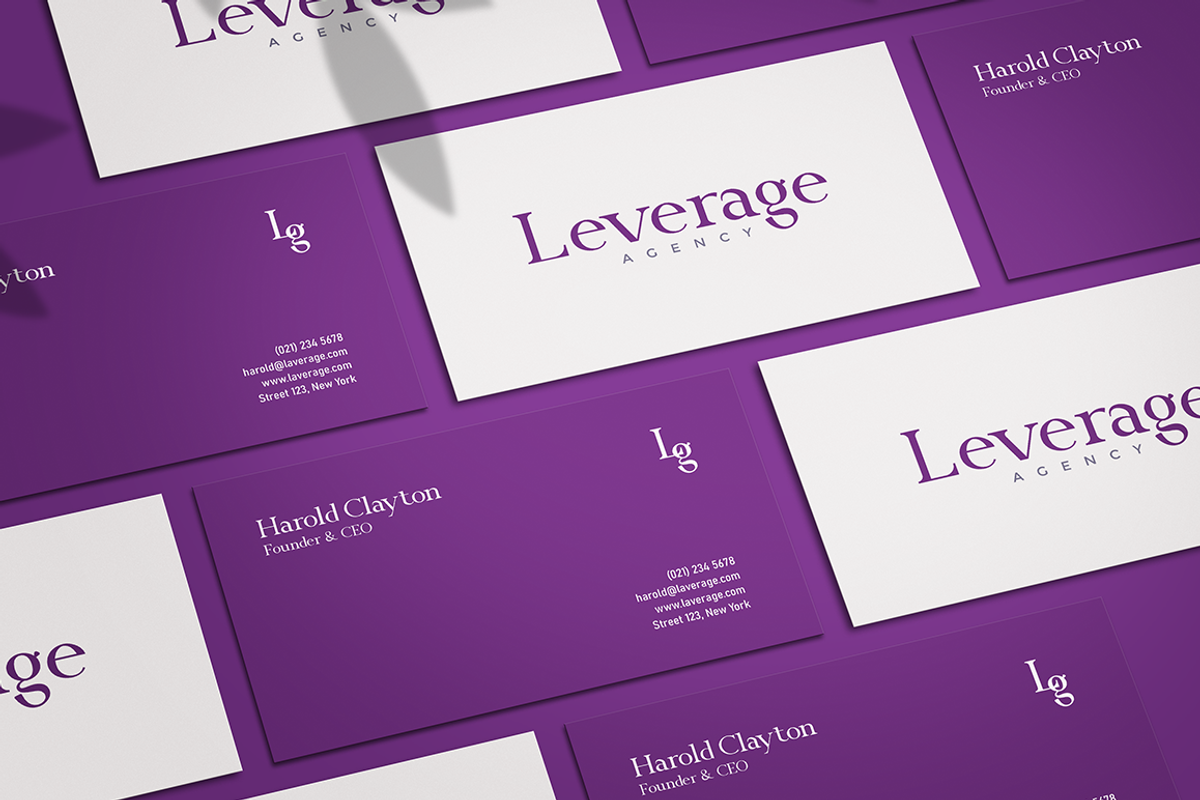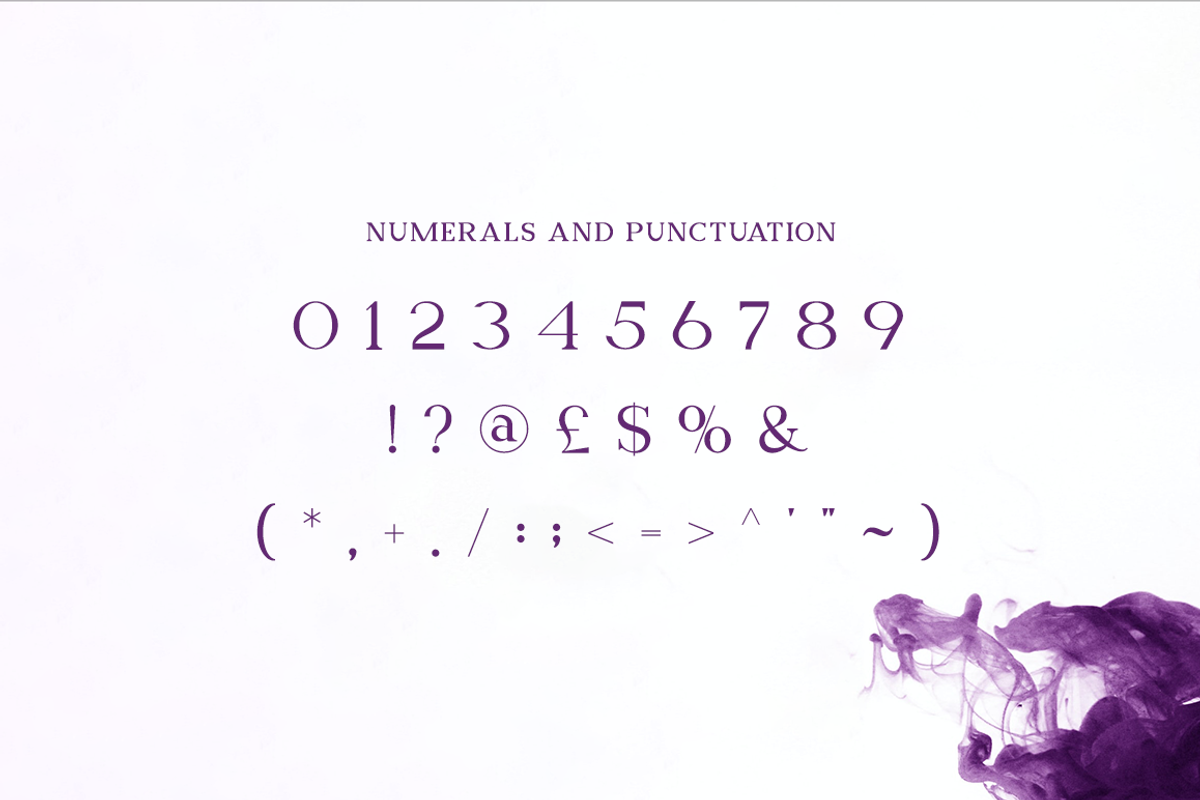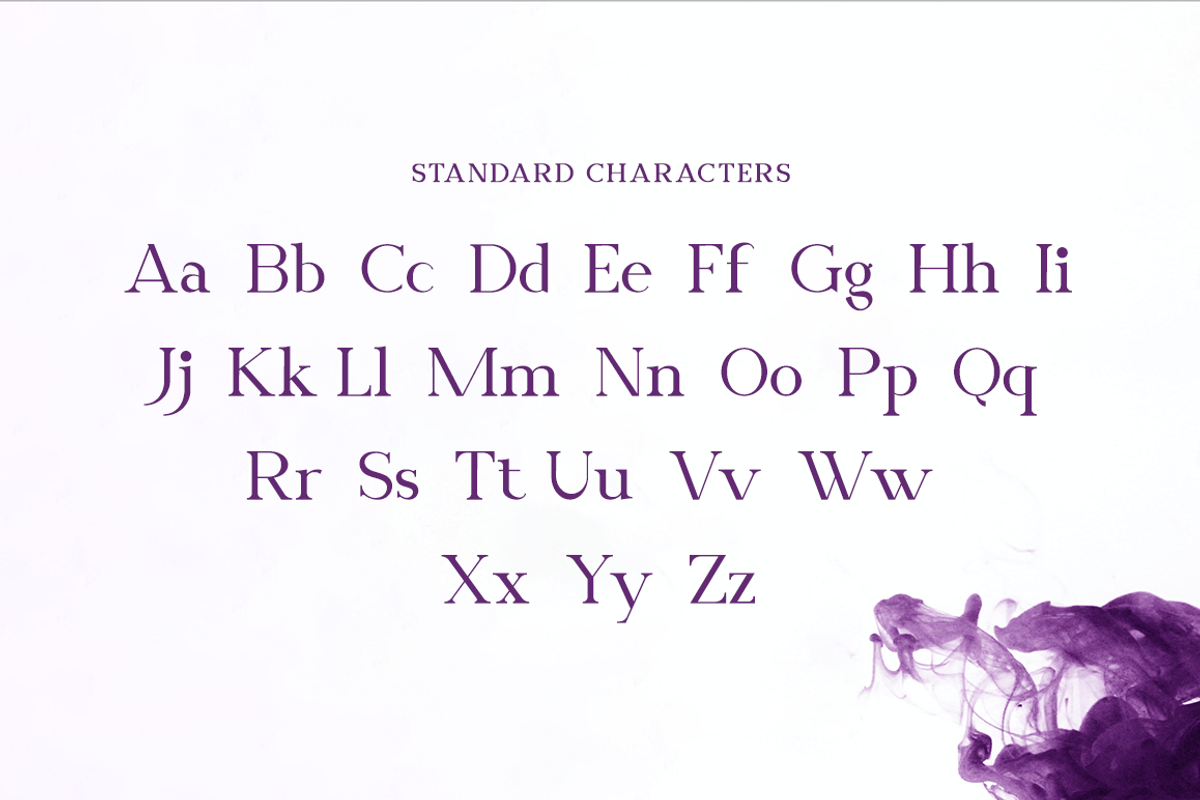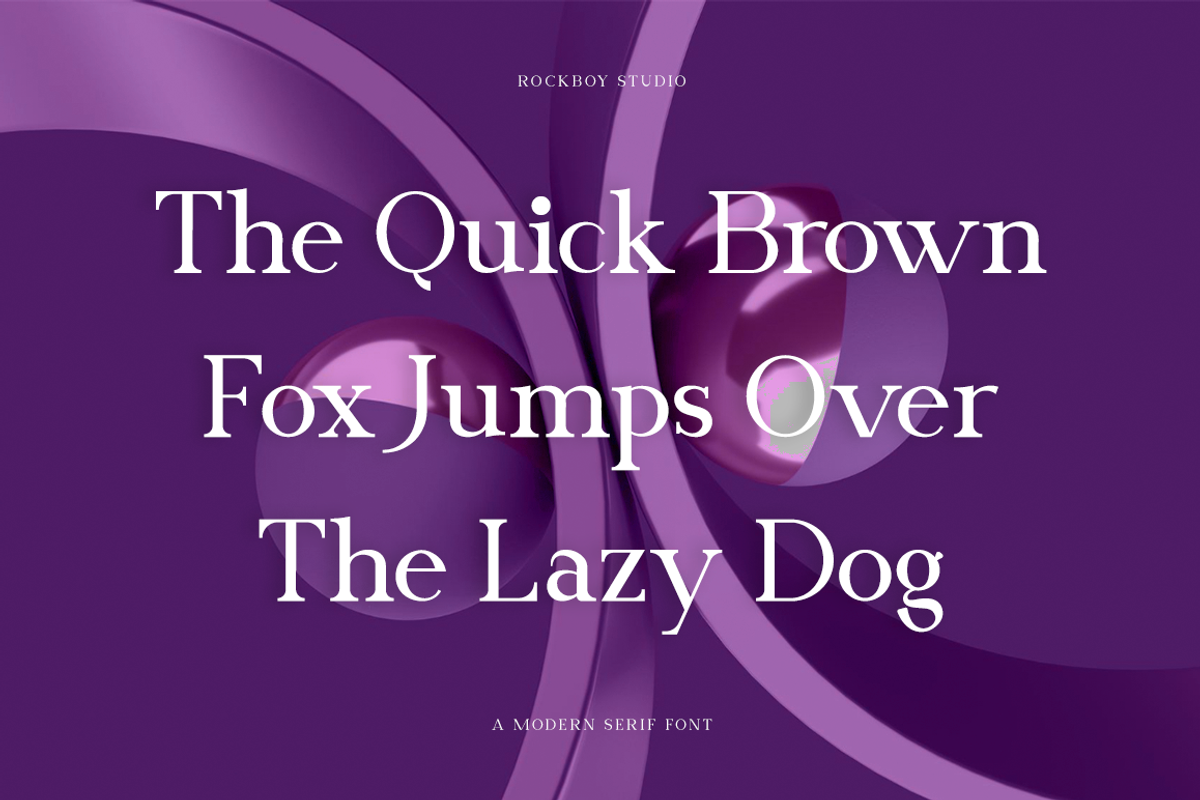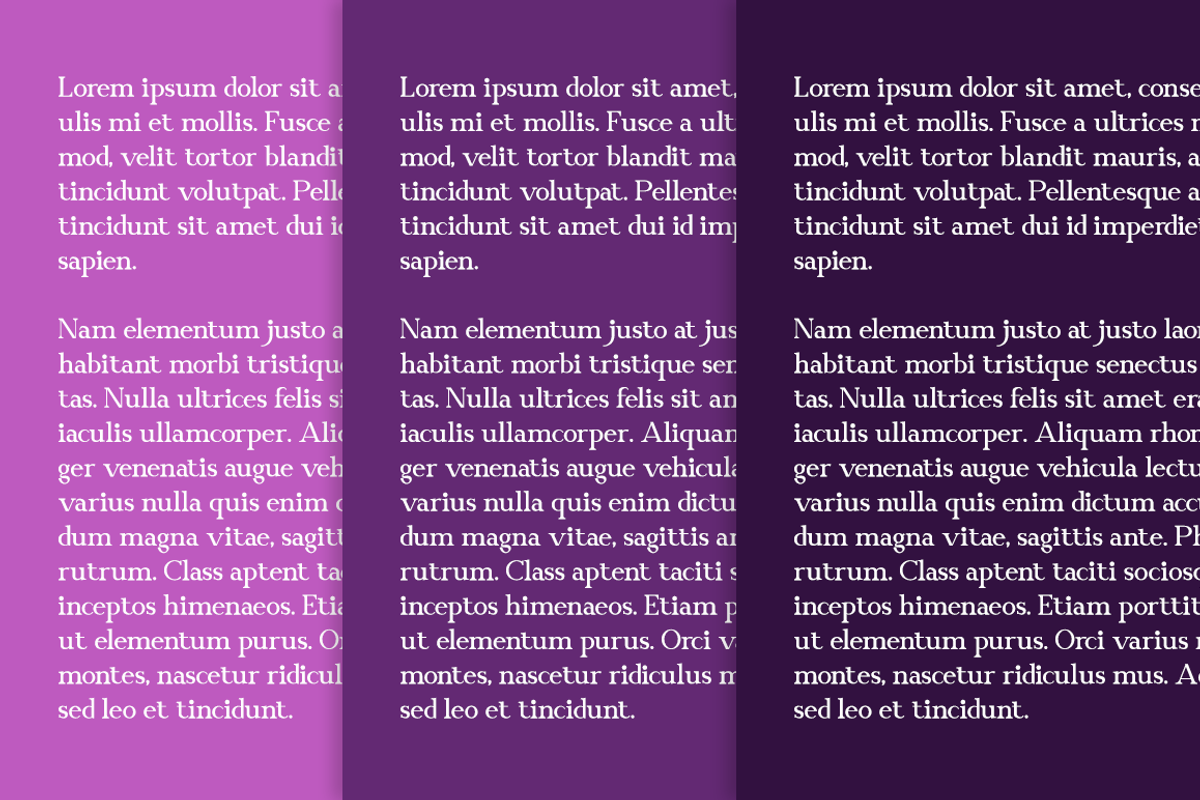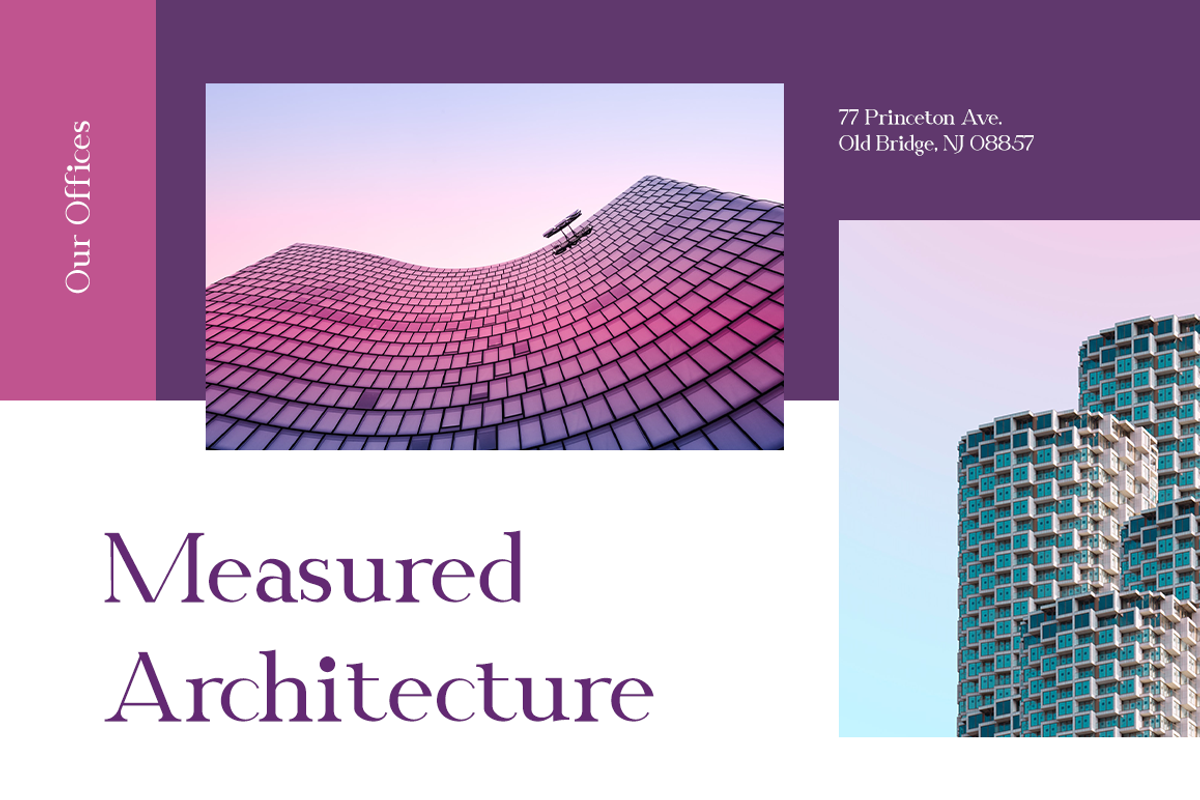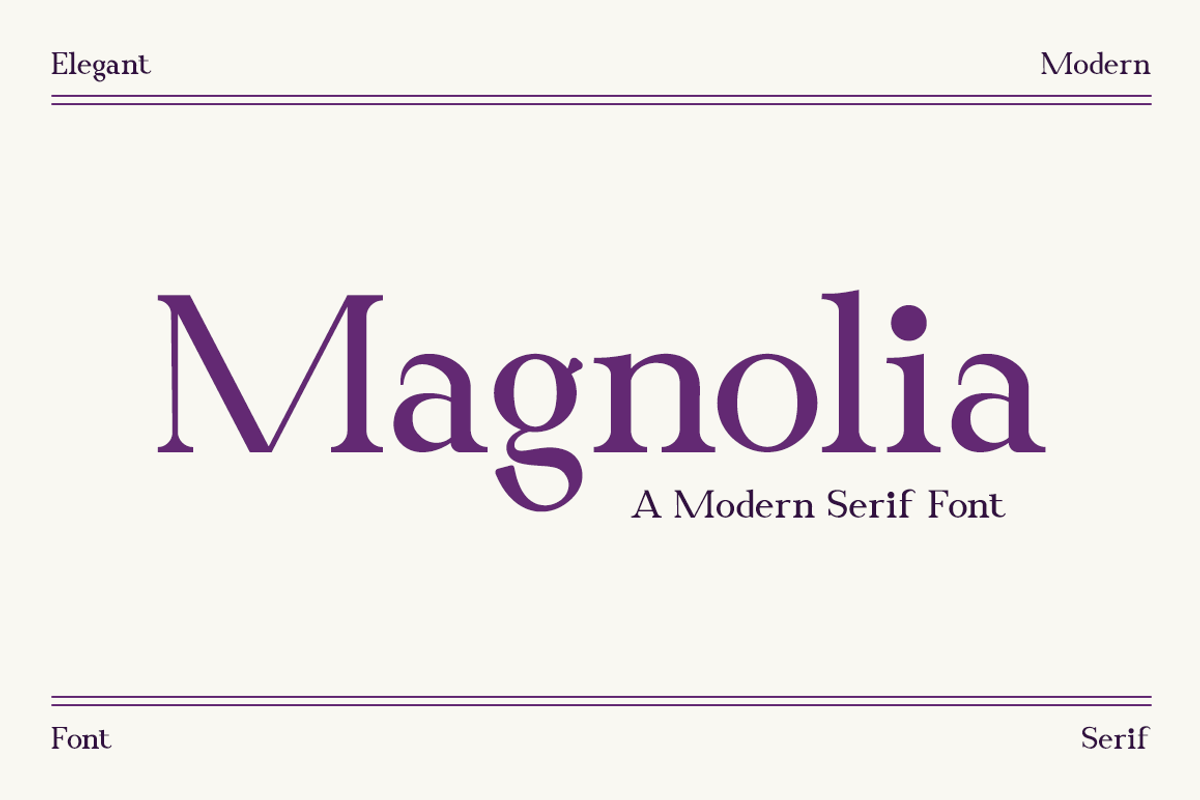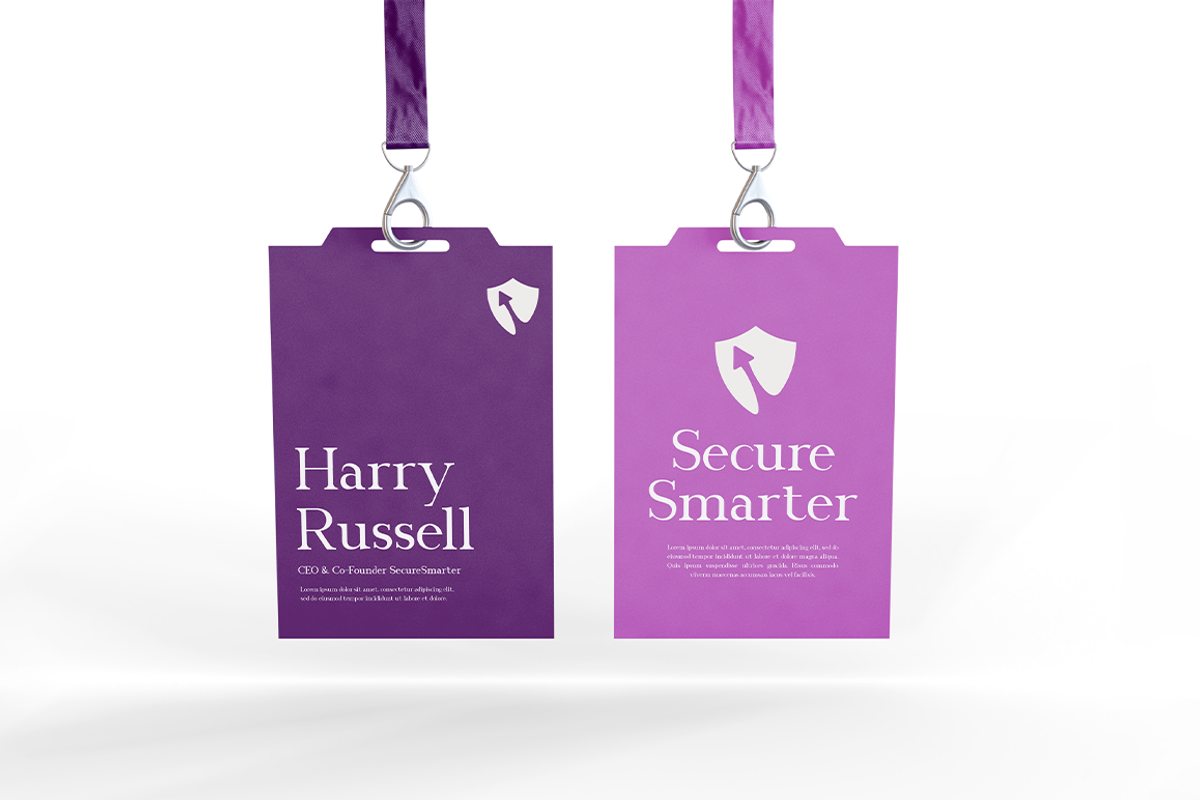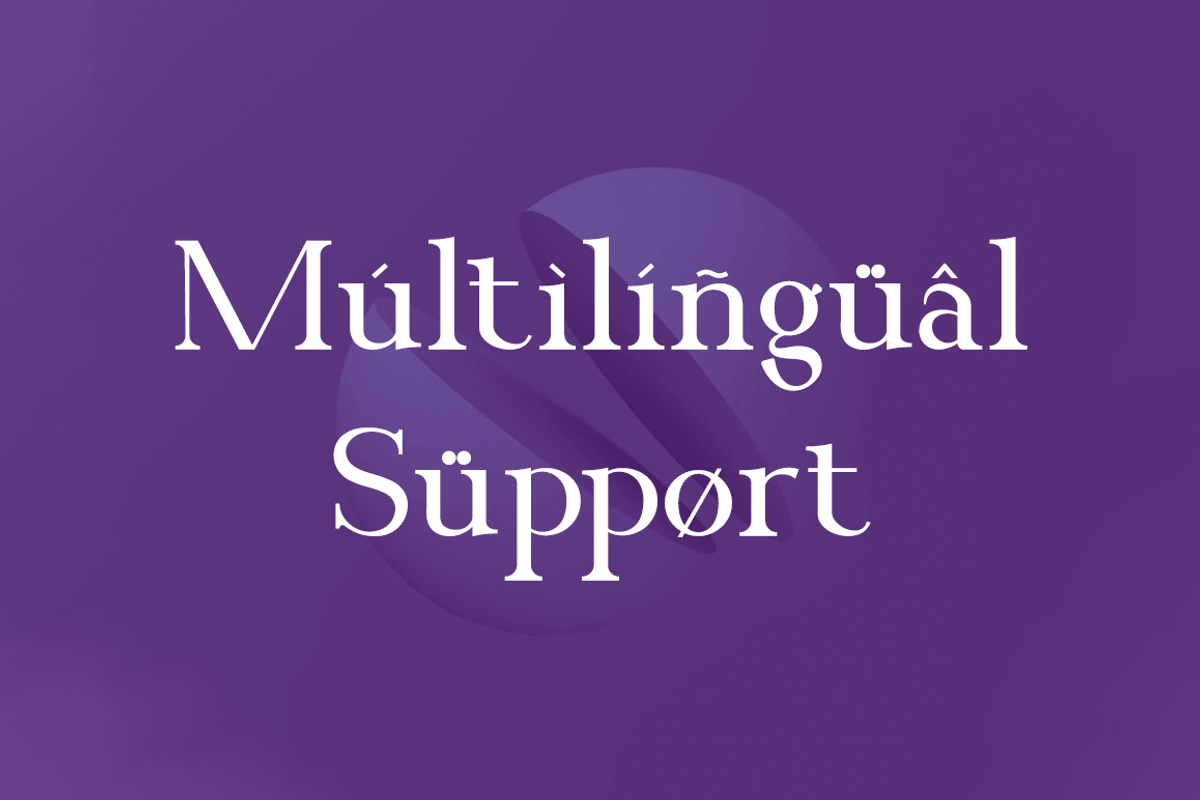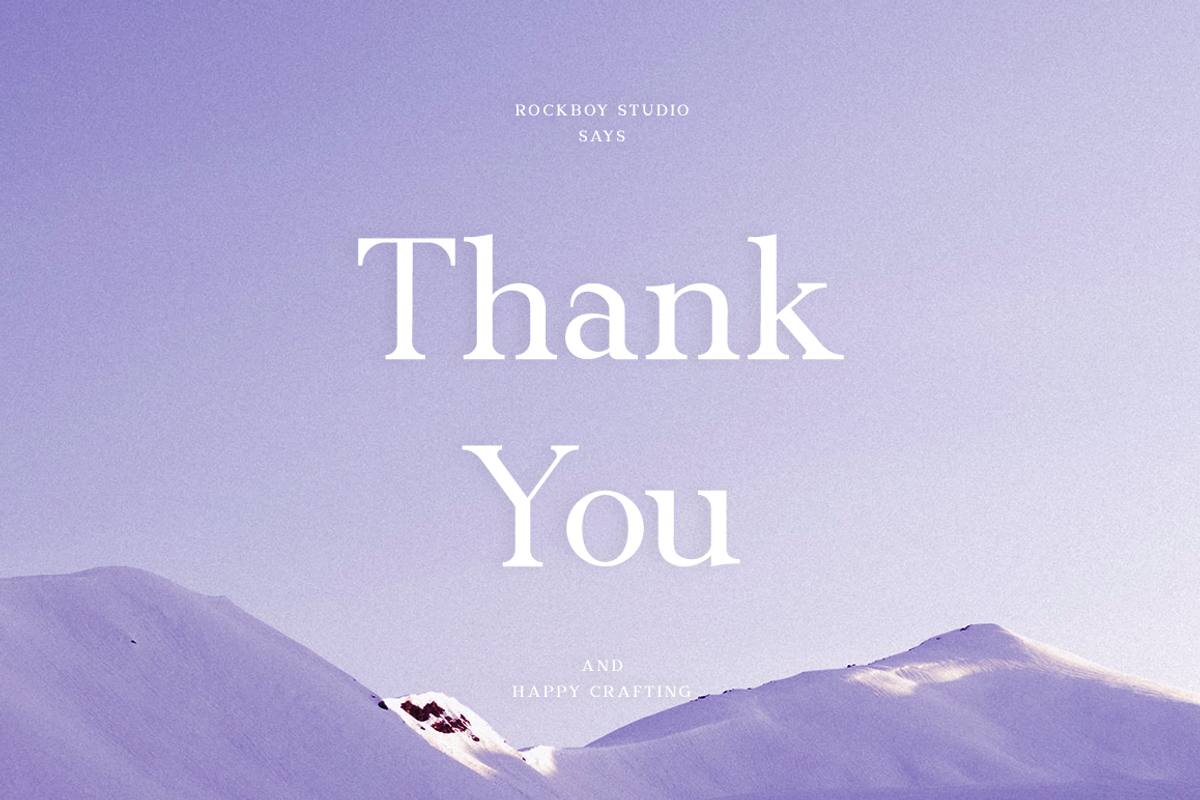
Magnolia - Business Font
Magnolia is an elegant and thin lettered serif font. It maintains its classy calligraphic influences while feeling contemporary and fresh. Fall in love with it and bring your projects to the highest levels!